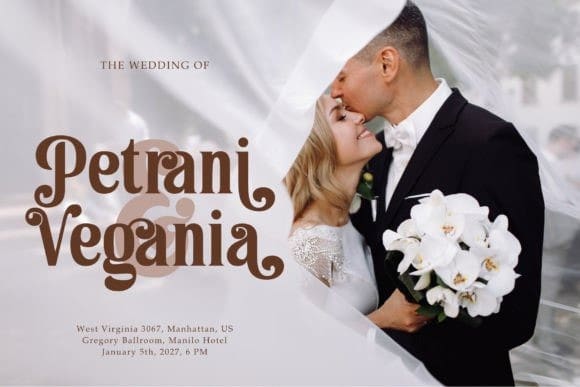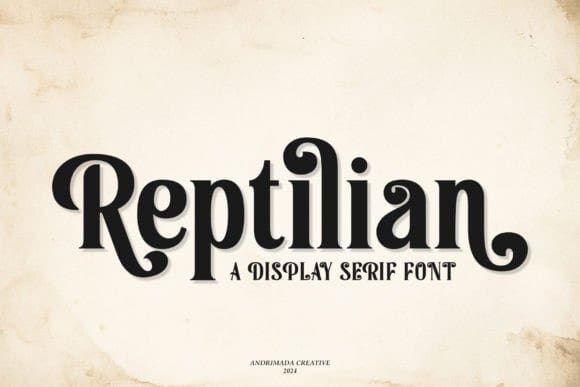
Reptilian Font
Reptilian Font is a unique classic serif font that seamlessly blends timeless elegance with a retro flair. Perfect for branding, book covers, fashion, and more, Reptilian offers a versatile design that captures the essence of both vintage and modern aesthetics. Its refined serifs and intricate details evoke a sense of nostalgia, making it an ideal choice for projects that require a touch of classic sophistication.